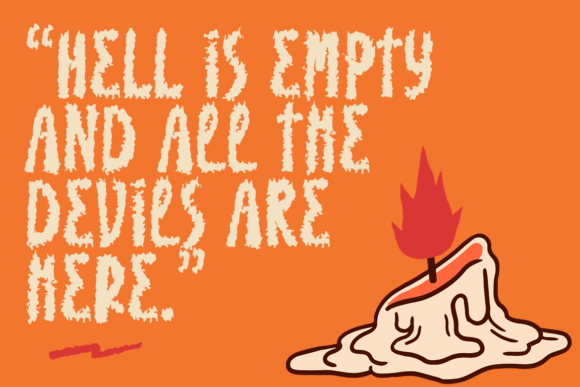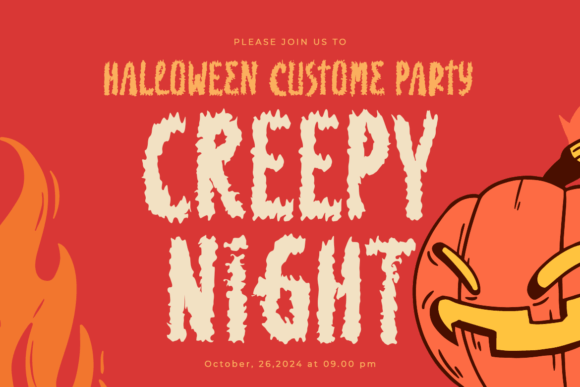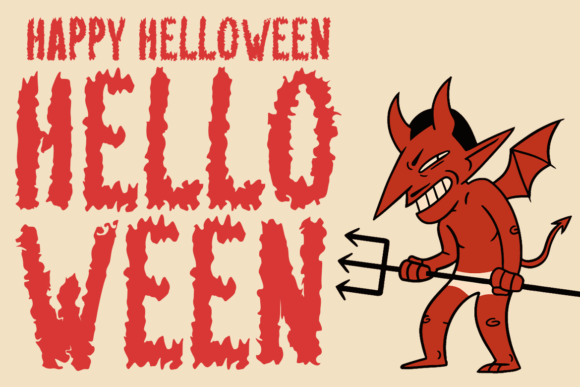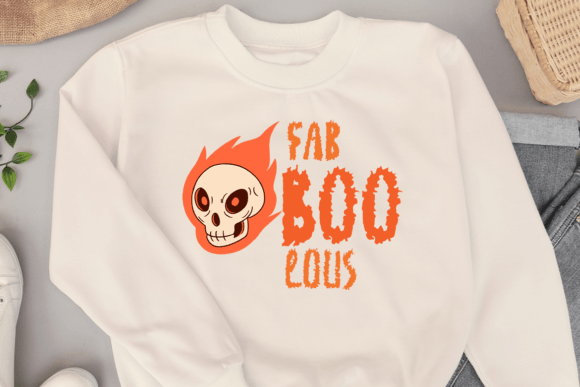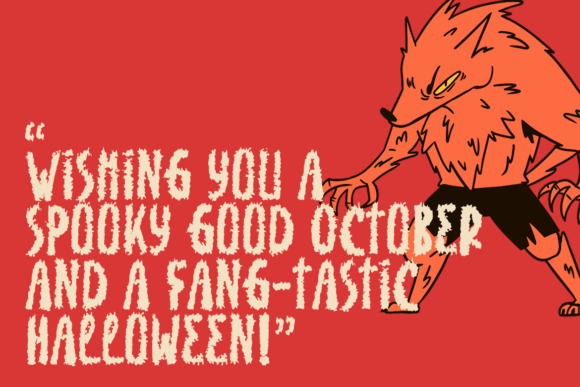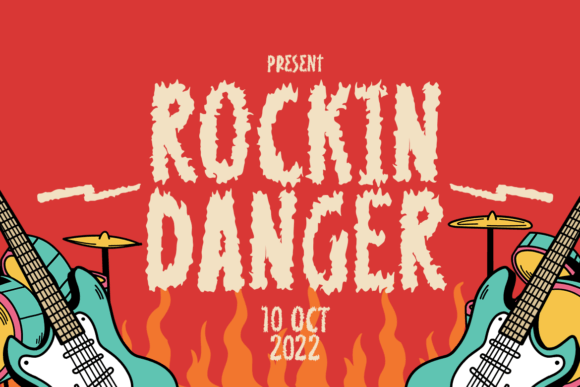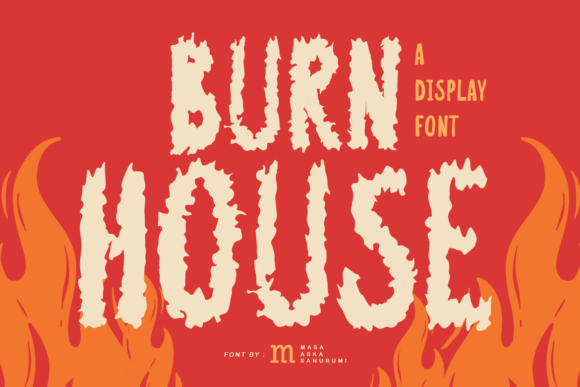
Unleash the Spooky Charm with Burn House Font: A Unique Display Font for Designers and Crafters
Are you tired of using the same old fonts in your designs? Do you want to add a touch of spookiness and uniqueness to your projects? Look no further than the Burn House Font, an incredibly interesting display font that’s sure to make each of your designs stand out. In this article, we’ll dive into the world of Burn House Font, exploring its features, uses, and benefits for designers and crafters.
What is Burn House Font?
Burn House Font is a display font that’s as spooky as it is fascinating. With its creepy and eerie feel, this font is perfect for designers and crafters who want to add a touch of darkness and mystery to their projects. Whether you’re working on a Halloween-themed design, a horror movie poster, or simply want to create something unique and eye-catching, Burn House Font is the perfect choice.
Features of Burn House Font
So, what makes Burn House Font so special? Here are just a few of its key features:
• Unique and quirky design: Burn House Font boasts a one-of-a-kind design that’s sure to grab attention.
• Spooky and creepy feel: This font has a distinctly eerie and mysterious vibe, perfect for Halloween-themed designs or horror-inspired projects.
• High-quality and versatile: Burn House Font is a high-quality font that’s versatile enough to be used in a wide range of designs, from posters and flyers to digital graphics and more.
Uses for Burn House Font
Burn House Font is perfect for a variety of design projects, including:
• Halloween-themed designs: Whether you’re creating a Halloween party invitation, a spooky poster, or a creepy digital graphic, Burn House Font is the perfect choice.
• Horror movie posters: Add a touch of eeriness and suspense to your horror movie posters with Burn House Font.
• Creepy crafts: Burn House Font is also perfect for crafters who want to add a spooky touch to their DIY projects, such as handmade cards, scrapbook pages, and more.
• Graphic design projects: This font is versatile enough to be used in a wide range of graphic design projects, from logos and branding to social media graphics and more.
Benefits of Using Burn House Font
So, why should you choose Burn House Font for your next design project? Here are just a few benefits:
• Stand out from the crowd: With its unique and quirky design, Burn House Font is sure to make your designs stand out from the crowd.
• Add a touch of spookiness: This font is perfect for designers and crafters who want to add a touch of spookiness and mystery to their projects.
• High-quality and versatile: Burn House Font is a high-quality font that’s versatile enough to be used in a wide range of designs.
Tips for Using Burn House Font
Here are a few tips for using Burn House Font in your design projects:
• Use it sparingly: Because of its bold and quirky design, it’s best to use Burn House Font sparingly to avoid overwhelming your design.
• Pair it with other fonts: Burn House Font pairs well with other fonts, so don’t be afraid to experiment with different font combinations.
• Experiment with colors: This font looks great in a variety of colors, so don’t be afraid to experiment with different color schemes.
In conclusion, Burn House Font is an incredibly unique and interesting display font that’s perfect for designers and crafters who want to add a touch of spookiness and mystery to their projects. With its creepy and eerie feel, high-quality design, and versatility, this font is sure to make each of your designs stand out. So why not give Burn House Font a try and see the difference it can make in your next design project?